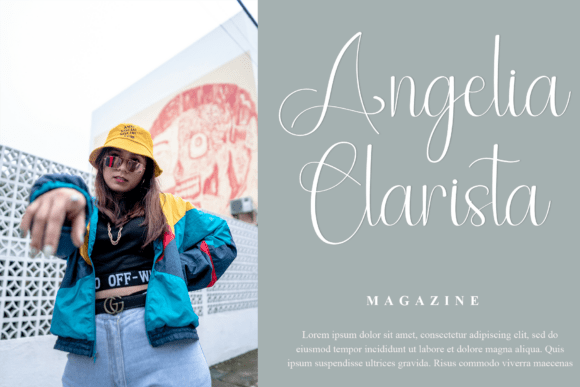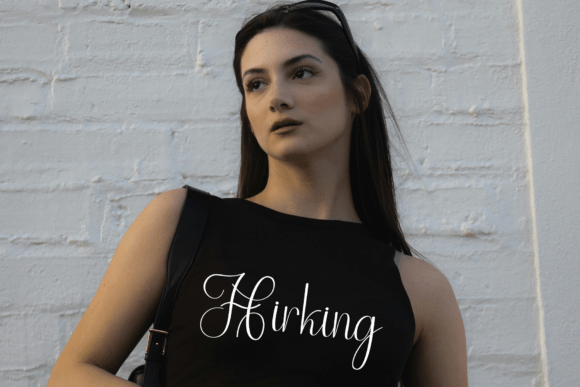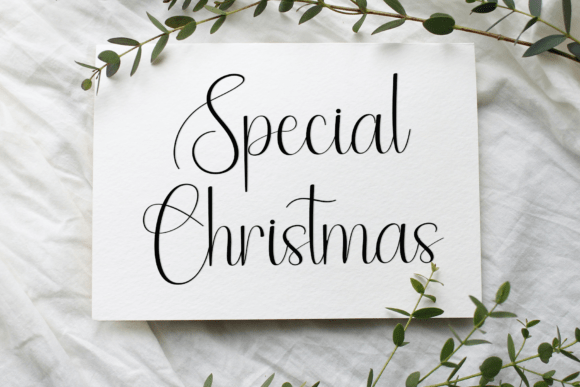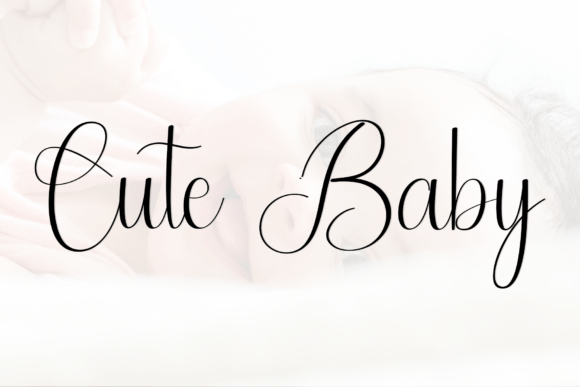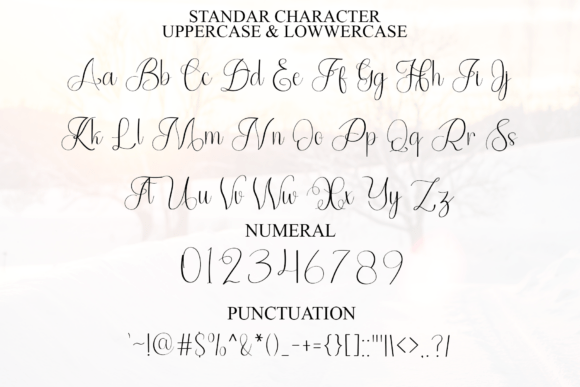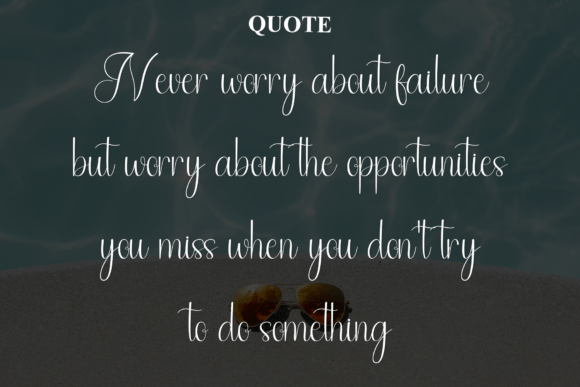
Unlock the Magic of Your Design with Beautysweet Font
Have you ever been brainstorming a new project and suddenly, the perfect idea hits you? Maybe it’s a stunning logo, a captivating brand name, or a beautiful quote that leaves a lasting impression. Whatever it is, it’s those moments of creative clarity that make all the hard work worth it.
For designers, finding the right font can make all the difference between a good design and a great one. That’s where Beautysweet Font comes in – a lovely and timeless handwritten font that’s sure to elevate your designs and leave a lasting impact. With its unique and beautiful touch, Beautysweet Font is the perfect choice for creating eye-catching logos, branding, and quotes that will make your design come alive.
Key Features of Beautysweet Font
- Size: The font family includes 6 different font weights (Thin, Light, Regular, Medium, Bold, Extra Bold) to cater to various design needs.
- Unique Characteristics: Features a unique blend of elegant and modern elements, making it suitable for various design applications, including beauty, fashion, and lifestyle branding.
- Language Support: Supports a wide range of languages, including Latin, Cyrillic, and Greek alphabets, making it a versatile choice for international designs.
- Kerning and Glyphs: Includes advanced kerning and glyph arrangements for precise letter spacing and optimal readability.
Beautysweet Font Review
Overall, I found the Beautysweet Font to be a visually appealing and unique addition to any design project. The font’s ✨ soft, rounded edges and elegant lines create a beautiful contrast that makes it stand out.
- ✨ Unique aesthetic: The font’s blend of modern and classic elements makes it perfect for projects that require a touch of sophistication.
- ✨ High readability: The font’s clear and easy-to-read design makes it perfect for body text and headlines.
- ✨ Versatile: The font can be used for a wide range of projects, from fashion and beauty to lifestyle and wellness.
- ⚠️ Limited font weights: The font only comes in a few weights, which may limit its use in certain design projects.
- ⚠️ Not ideal for bold headlines: While the font is great for body text, it may not be the best choice for bold, eye-catching headlines.
Overall, I would recommend the Beautysweet Font for projects that require a touch of elegance and sophistication. With its unique aesthetic and high readability, it’s a great addition to any designer’s toolkit.
Beautysweet Font is perfect for a wide range of designs, from fashion and beauty to lifestyle and wellness.